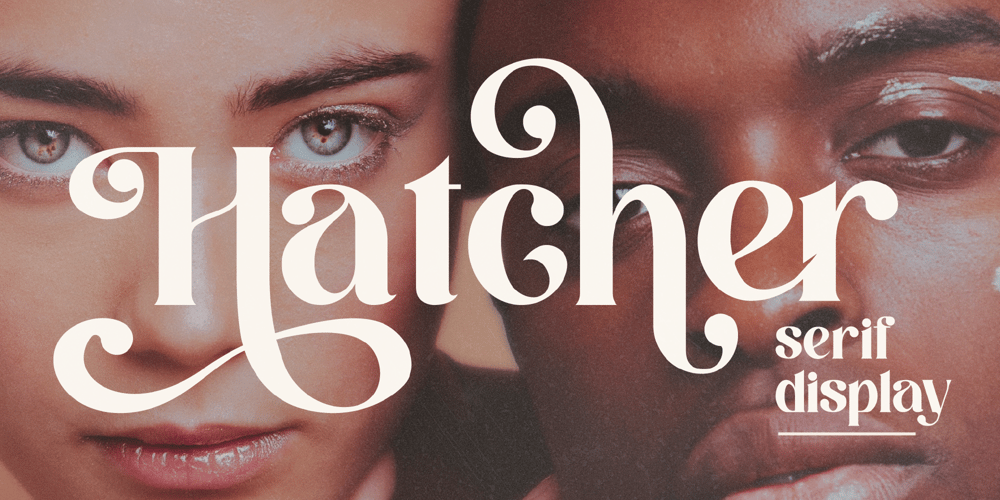
Hatcher
Hatcher Font Family was designed by Heru Utama Putra and published by Letterena Studios. Hatcher contains 2 styles and family package options. Hatcher is a stylish and distinct serif font. This font is PUA encoded which means you can access all of the glyphs and swashes with ease!